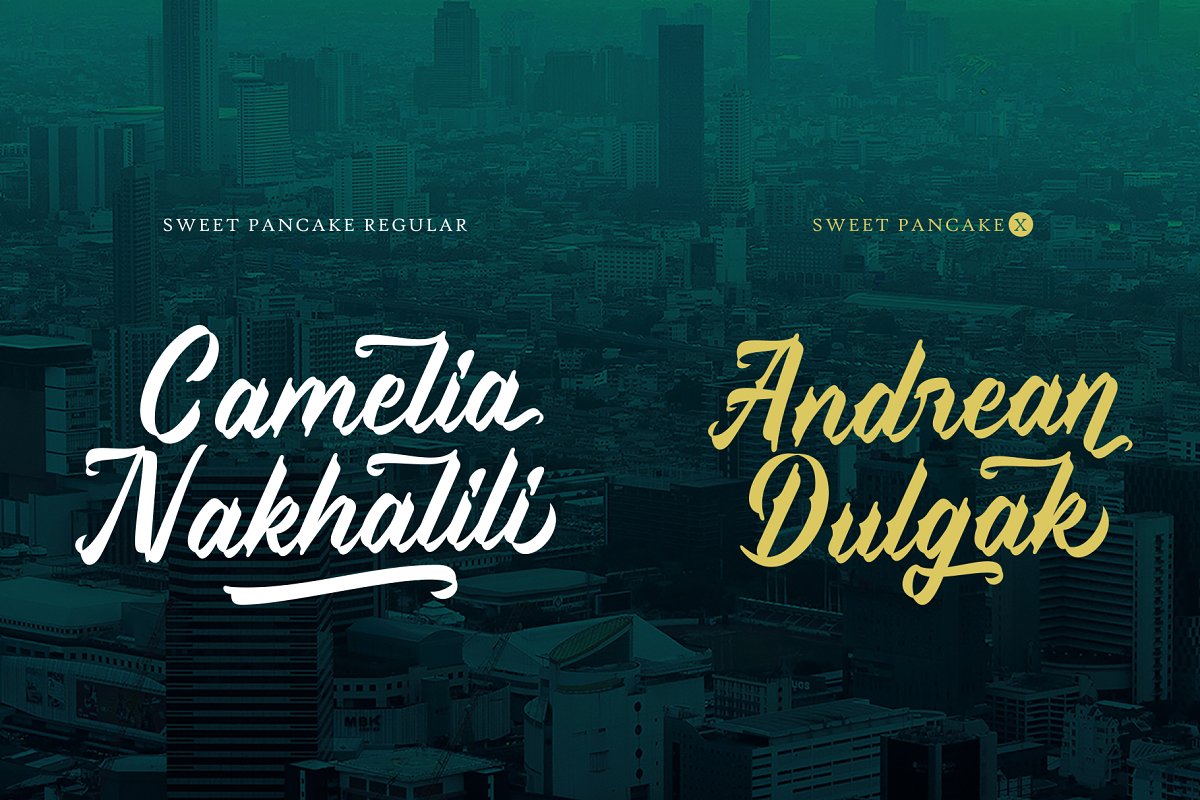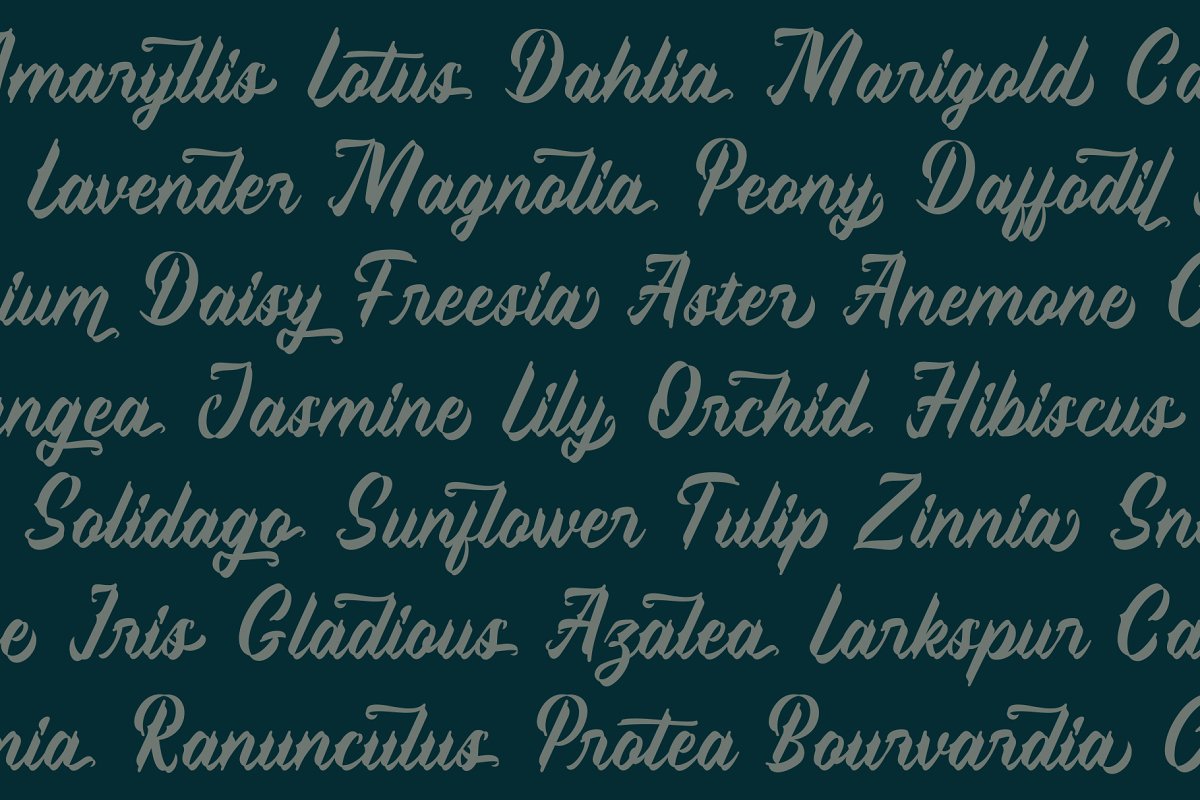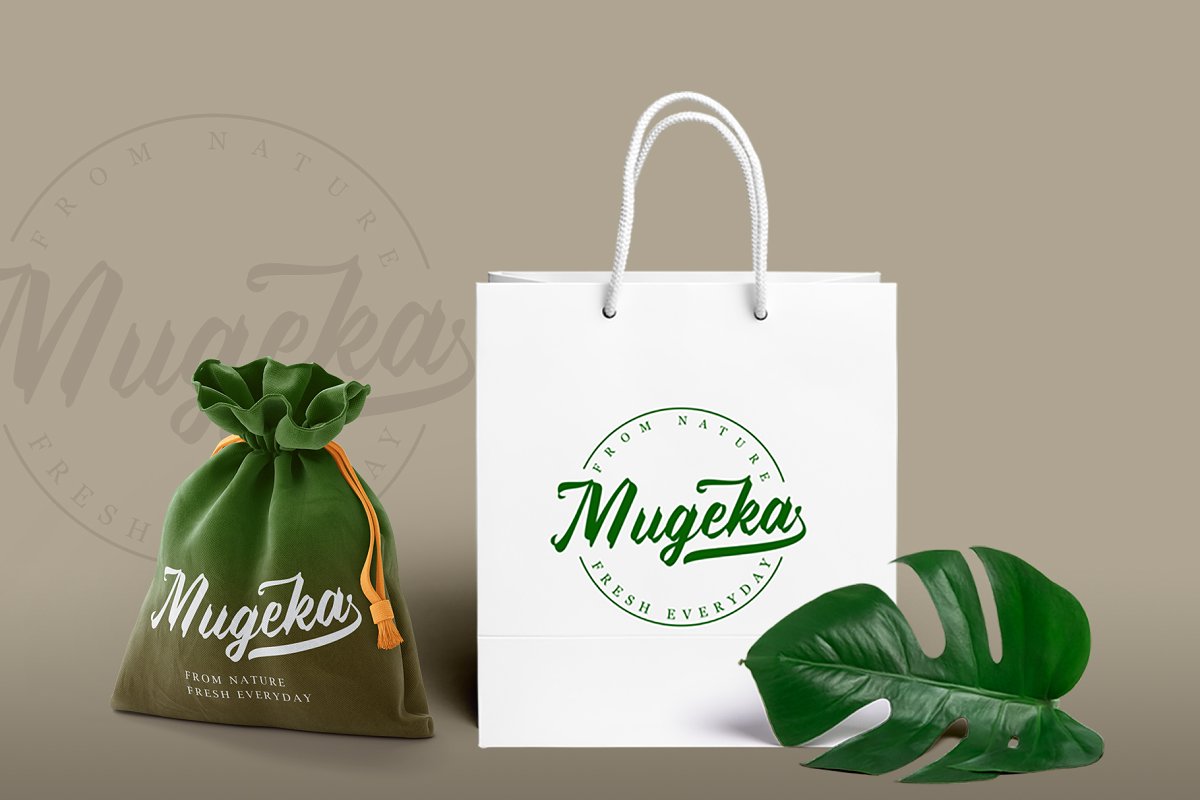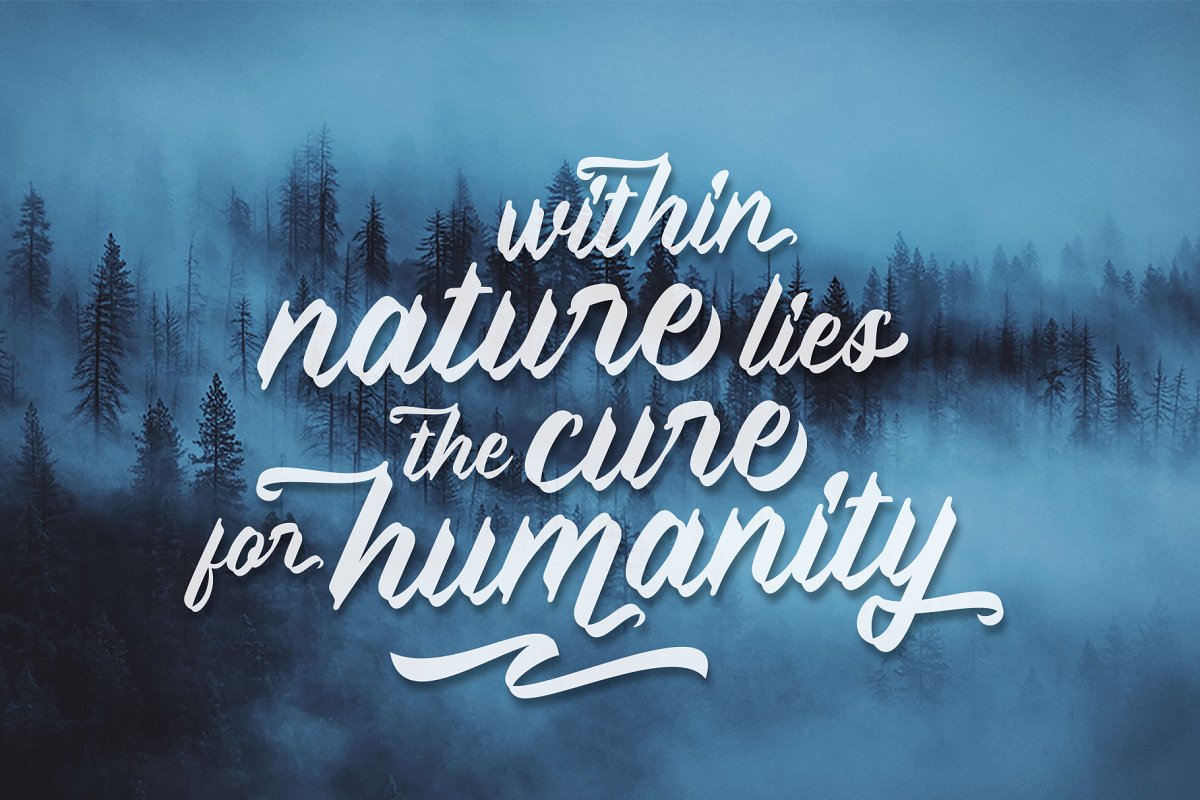
Sweet Pancake Script Font
A new modern script typeface by Locomotype. Presenting Sweet Pancake Font. Sweet Pancake Script Font comes in different calligraphy styles. The usual shape has been customized to make it look more personal and special. Sweet Pancake is suitable for logotype, invitation, poster and more. Available in OTF and TTF formats, also supports multi-language and PUA encoded.